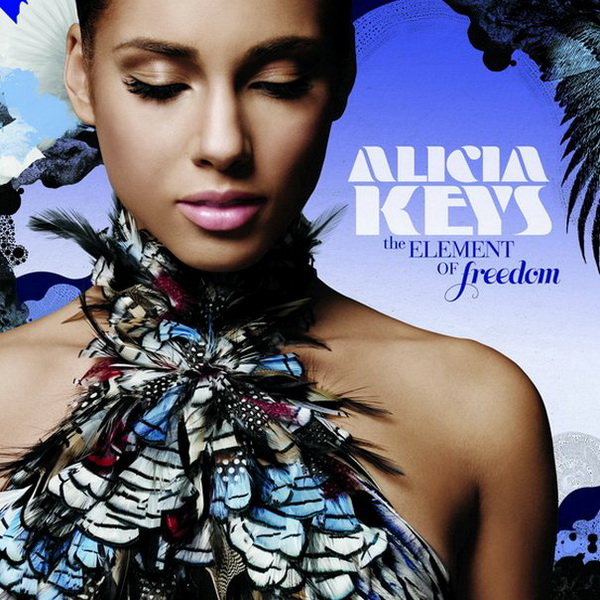
The Elements of Freedom Font
Fonts in UseThe Elements of Freedom is the fourth studio album by American singer-songwriter Alicia Keys, released in 2009. The album features a blend of pop, R&B, and soulful ballads, with lyrics that touch upon themes of love, self-discovery, and personal growth.